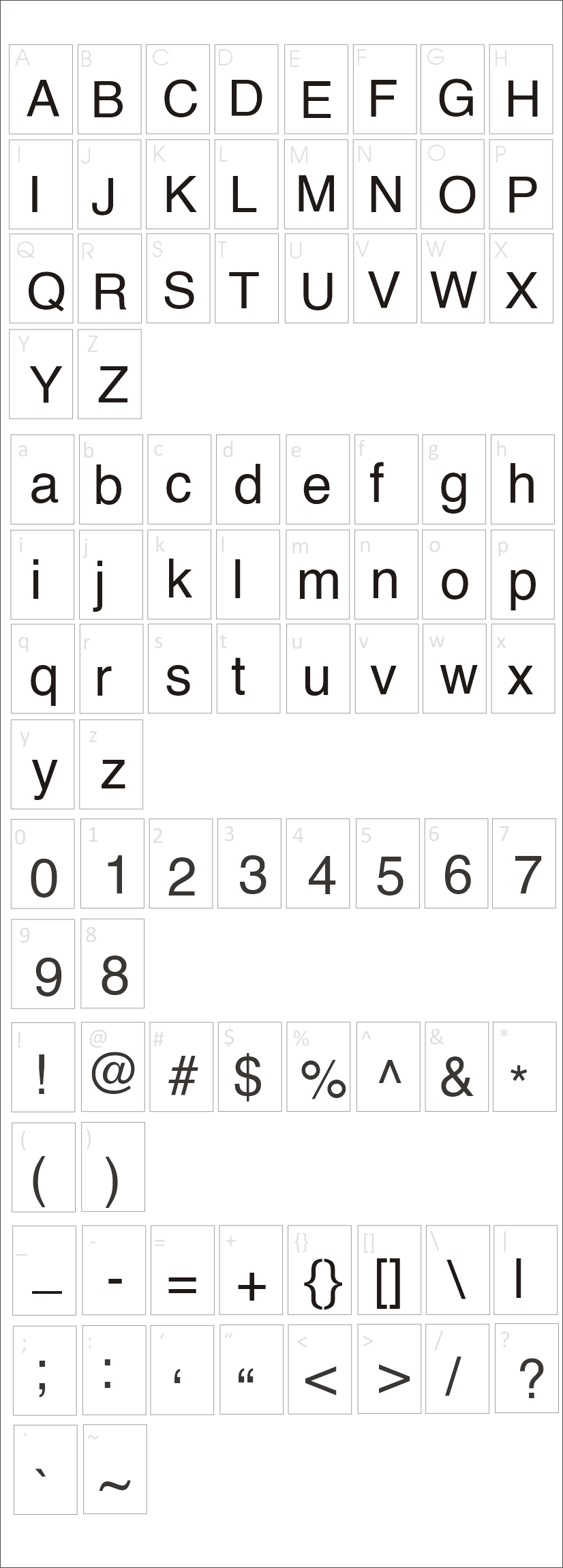
Name | Helvetica Font Family |
Font Designer | Max Miedinger, Eduard Hoffmann |
Category | Sans-Serif, Neo-Grotesque |
Helvetica is one of the most widely recognized and used sans-serif typefaces in the world. Its clean, neutral design and versatility have made it a staple in graphic design, typography, and branding for decades.
Key Features of Helvetica Font Family:
- Geometric: Helvetica features a geometric sans-serif design characterized by its clean lines and precise shapes.
- Neutral: The typeface’s neutral character makes it highly versatile and adaptable to a wide range of styles and applications.
- Readable: Helvetica’s legibility and clarity make it easy to read even in small sizes or at a distance.
- Versatile: The typeface is suitable for a variety of purposes, including print, digital, and branding applications.
History of Helvetica Font:
Helvetica was designed in 1957 by Max Miedinger and Eduard Hoffmann for the Swiss company Haas Type Foundry. It was initially named “Neue Haas Grotesk” but was later renamed Helvetica in 1960 to reflect its international appeal.
Impact and Popularity:
Helvetica’s popularity has skyrocketed over the years, and it has become synonymous with modern design. Its clean and minimalist aesthetic has influenced countless designers and has been used in iconic branding and design projects.
Variants:
- Helvetica
- Helvetica Light
- Helvetica Oblique
- Helvetica Bold Oblique
- Helvetica Compressed
- Helvetica Rounded Bold
Uses and Applications:
Helvetica is a versatile typeface with a wide range of applications, including:
- Branding: It’s commonly used for logos, branding materials, and corporate identities.
- Print Design: Helvetica is a popular choice for books, magazines, newspapers, and other print publications.
- Digital Design: The typeface is widely used in website design, user interfaces, and mobile apps.
- Signage: Helvetica is often used for signage and wayfinding systems due to its legibility and clarity.